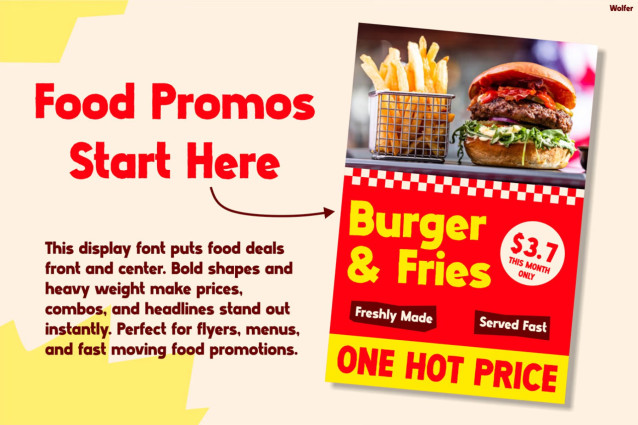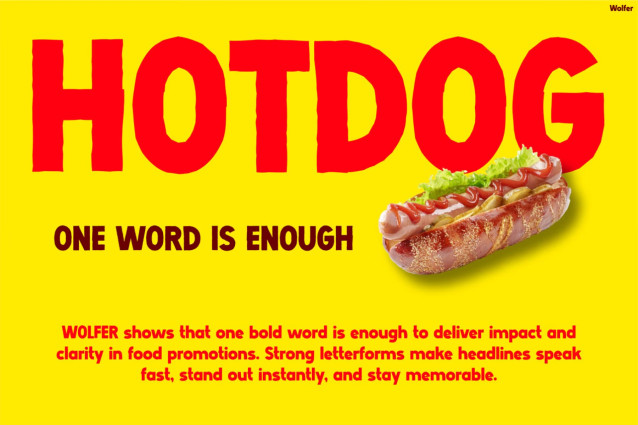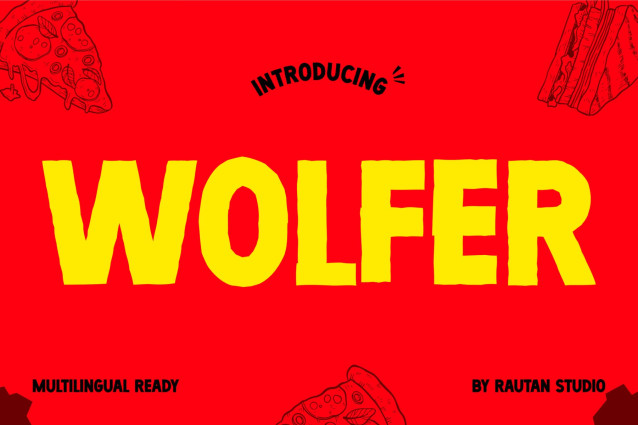
Wolfer Font
Wolfer is a bold, playful display sans-serif font designed to bring maximum energy and impact to your layouts. Characterized by its heavy weight, slightly irregular hand-drawn edges, and expressive, friendly letterforms, this typeface carries a lively, informal personality that demands attention without losing its approachable charm.
This typeface is highly suited for food branding, fast-casual restaurant menus, product packaging, and promotional flyers. Its thick, high-contrast presence makes it an excellent choice for loud headlines, price callouts, food truck signage, and social media graphics where you need your message to stand out instantly.